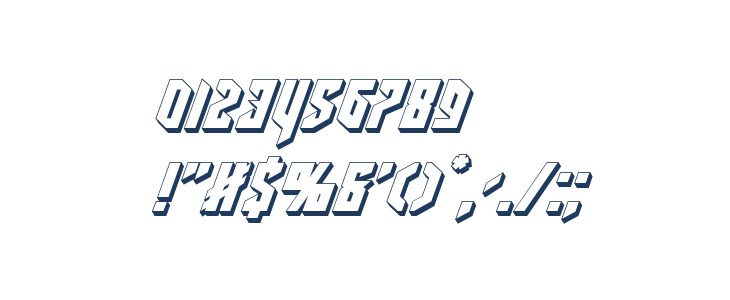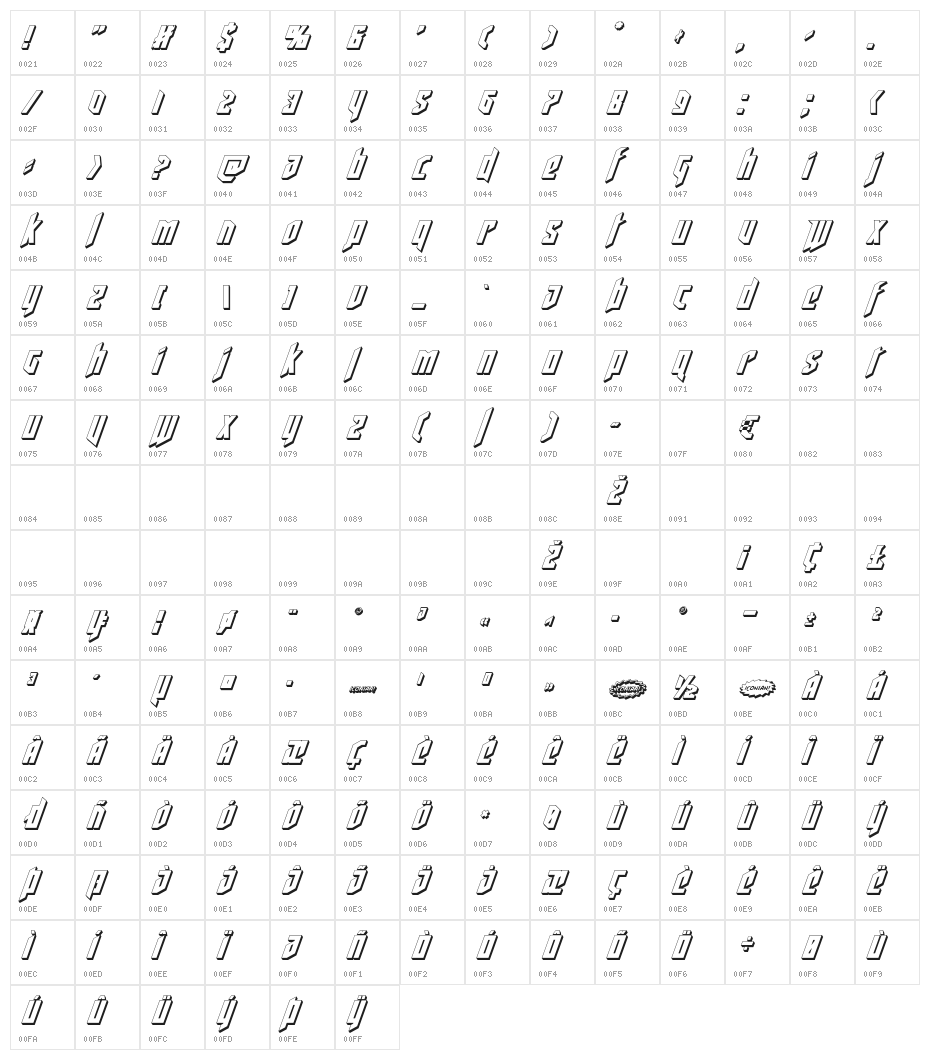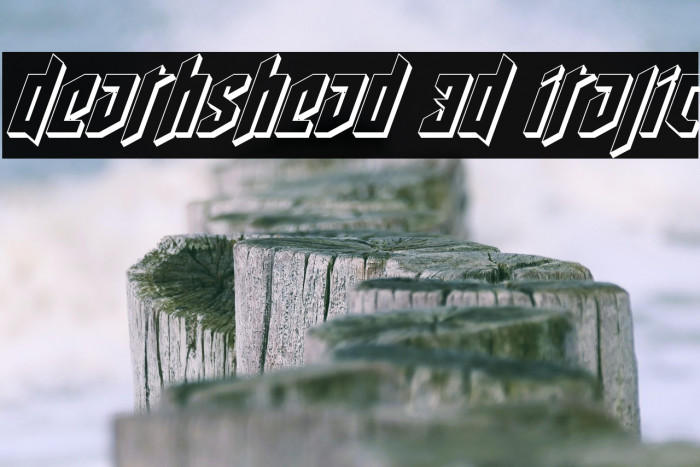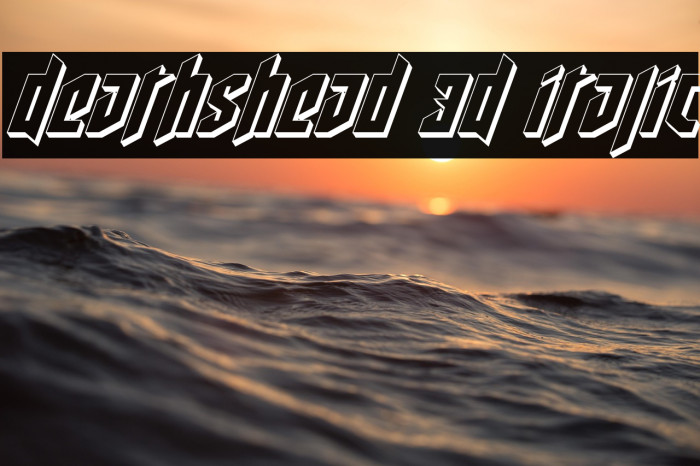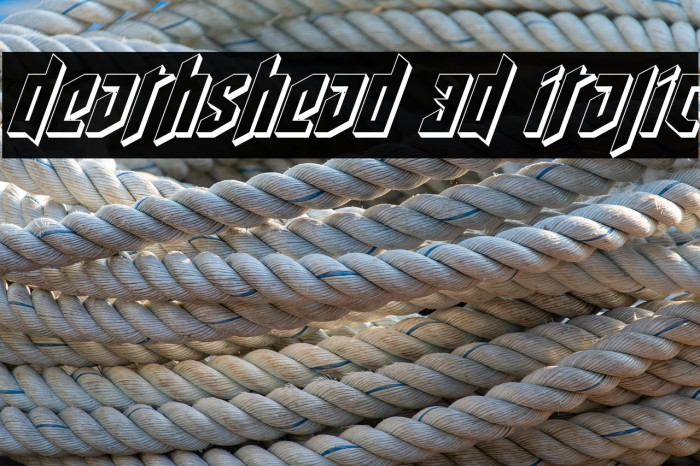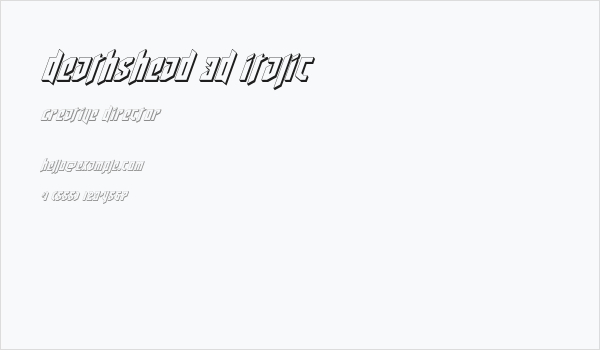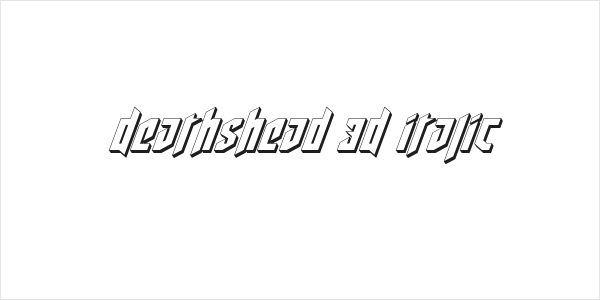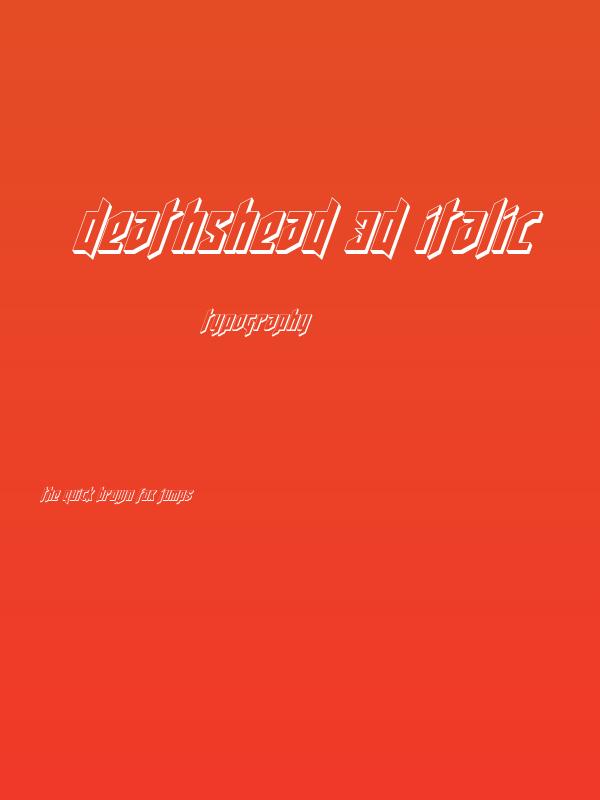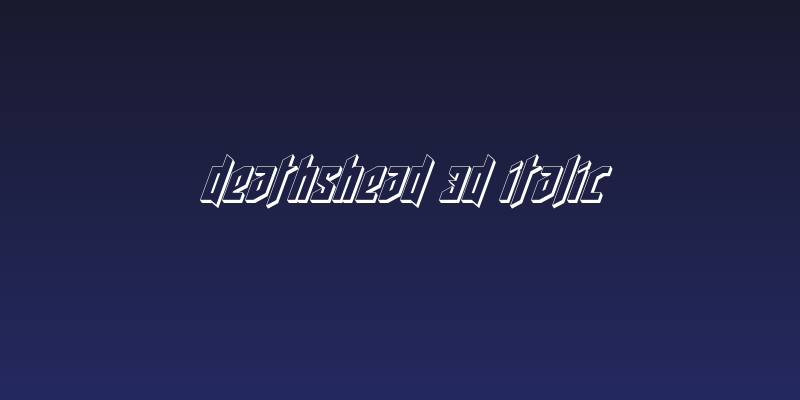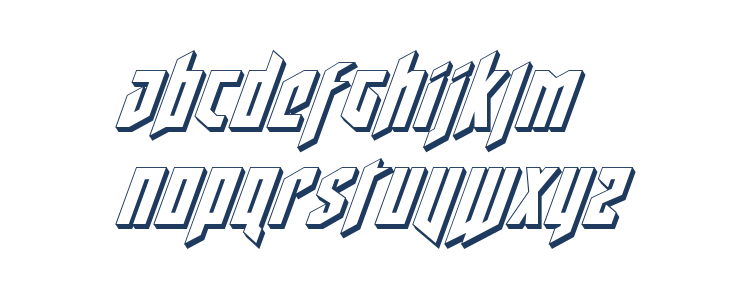
Deathshead 3D Italic Font
Deathshead 3D Italic Description
This font features a bold, three-dimensional design with a distinct italic slant, giving it a dynamic and edgy appearance. The characters are sharply angled, with a shadow effect that enhances the 3D illusion. The uppercase and lowercase letters maintain a consistent style, with angular cuts and a futuristic feel. The numerals and special characters follow the same bold and italicized design, ensuring uniformity across the typeface. This font's unique style makes it stand out, ideal for projects that require a strong visual impact.
| Proposed Projects | Ideal for video game titles, movie posters, and branding that requires a bold, modern look. |